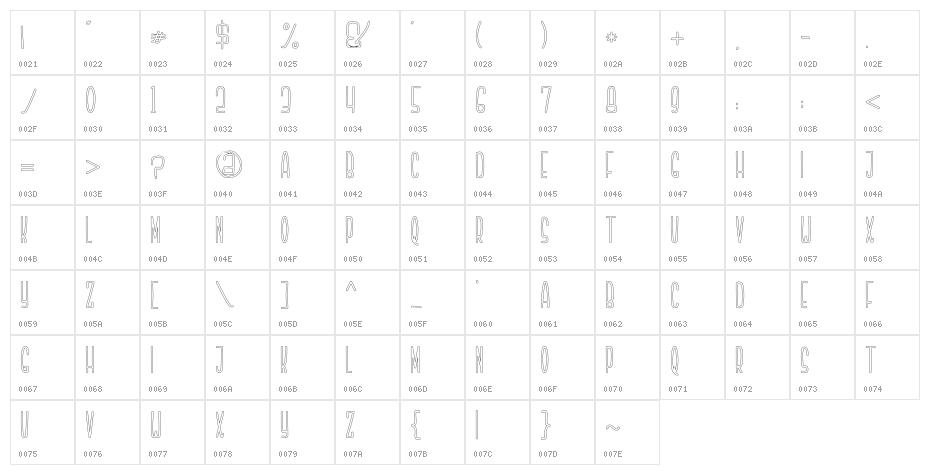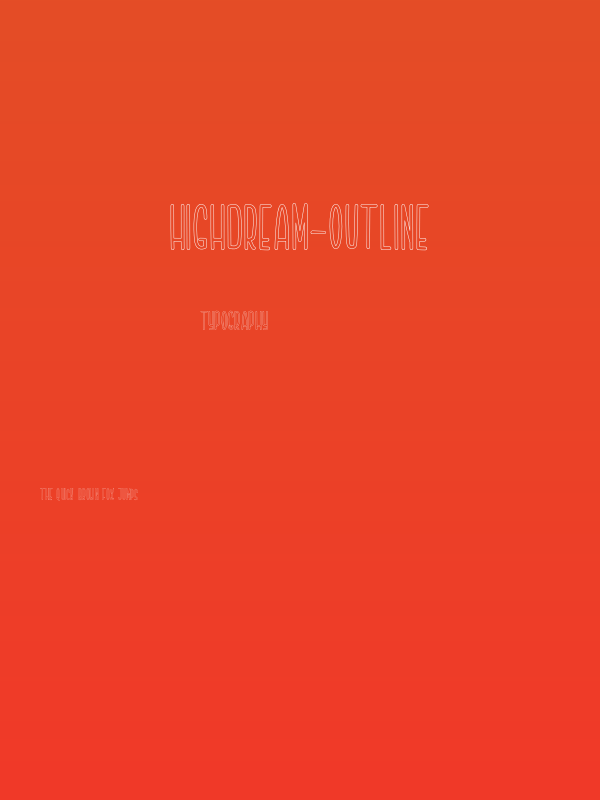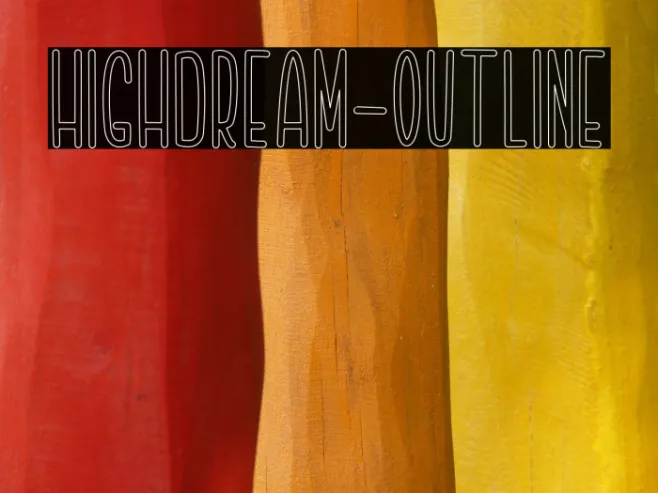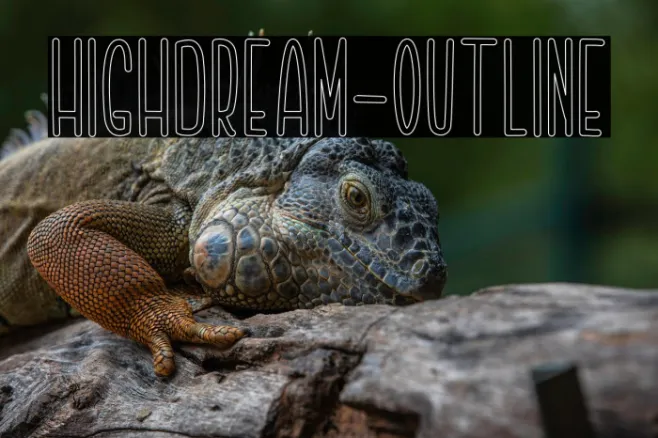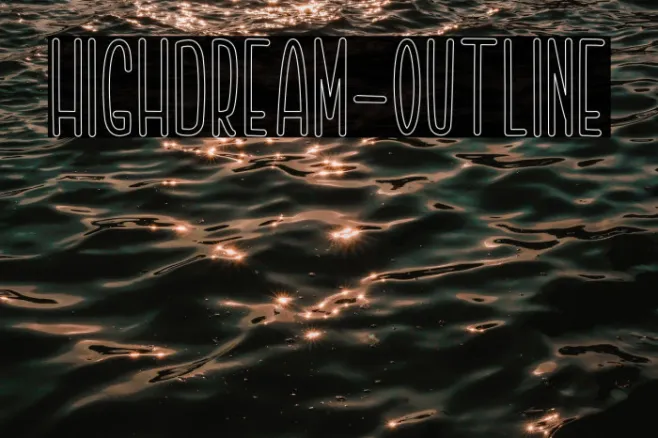
Highdream-Outline Font
Highdream-Outline Description
This font features a unique outline style that gives it a modern and airy appearance. The characters are tall and narrow, with a consistent stroke width that creates a clean and minimalist look. The uppercase and lowercase letters maintain a uniform height, enhancing readability while adding a touch of elegance. The numerals and special characters follow the same design principles, ensuring a cohesive visual experience. This font's outline design makes it stand out, providing a distinct and stylish option for various creative projects.
HIGHDREAM-OUTLINE UPPERCASE
HIGHDREAM-OUTLINE LOWERCASE
HIGHDREAM-OUTLINE OTHER CHARS